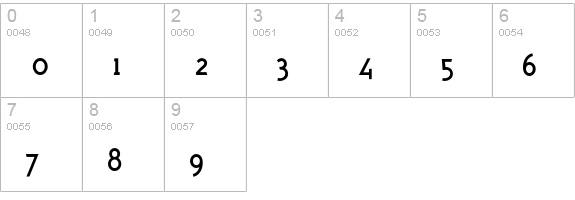
PolymerMediumCaps Font Details
PolymerMediumCaps font is a versatile and modern typeface that combines the sleekness of a sans-serif with the elegance of traditional serif fonts. With its medium weight and distinctive capital letters, this font is perfect for creating eye-catching headlines, logos, and branding materials. What sets PolymerMediumCaps font apart is its unique blend of geometric shapes and classic design elements, making it both contemporary and timeless. The clean lines and sharp angles of each letter give this font a professional and polished look that is sure to make your designs stand out. Best of all, PolymerMediumCaps font is available for free download at FontsMarket.com. Whether you're a designer looking to add a fresh new typeface to your collection or a business owner in need of a stylish font for your marketing materials, PolymerMediumCaps font has got you covered. Download it today and elevate your designs with this stunning and versatile font.